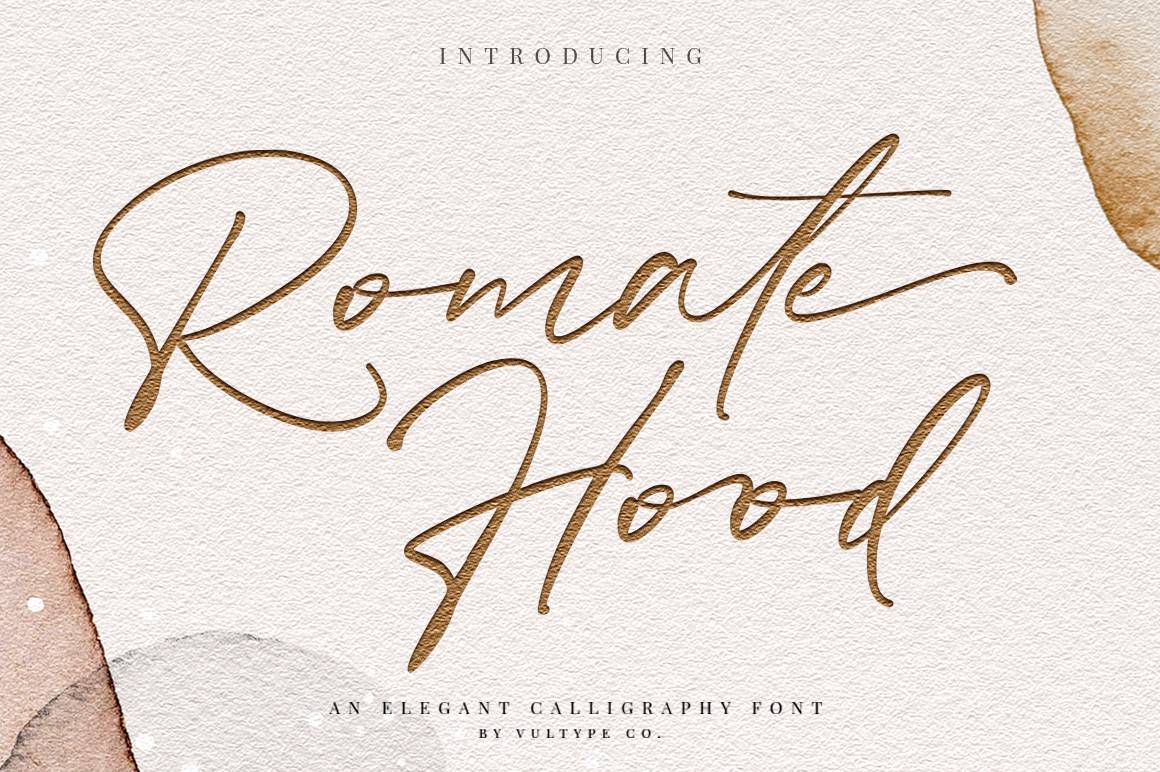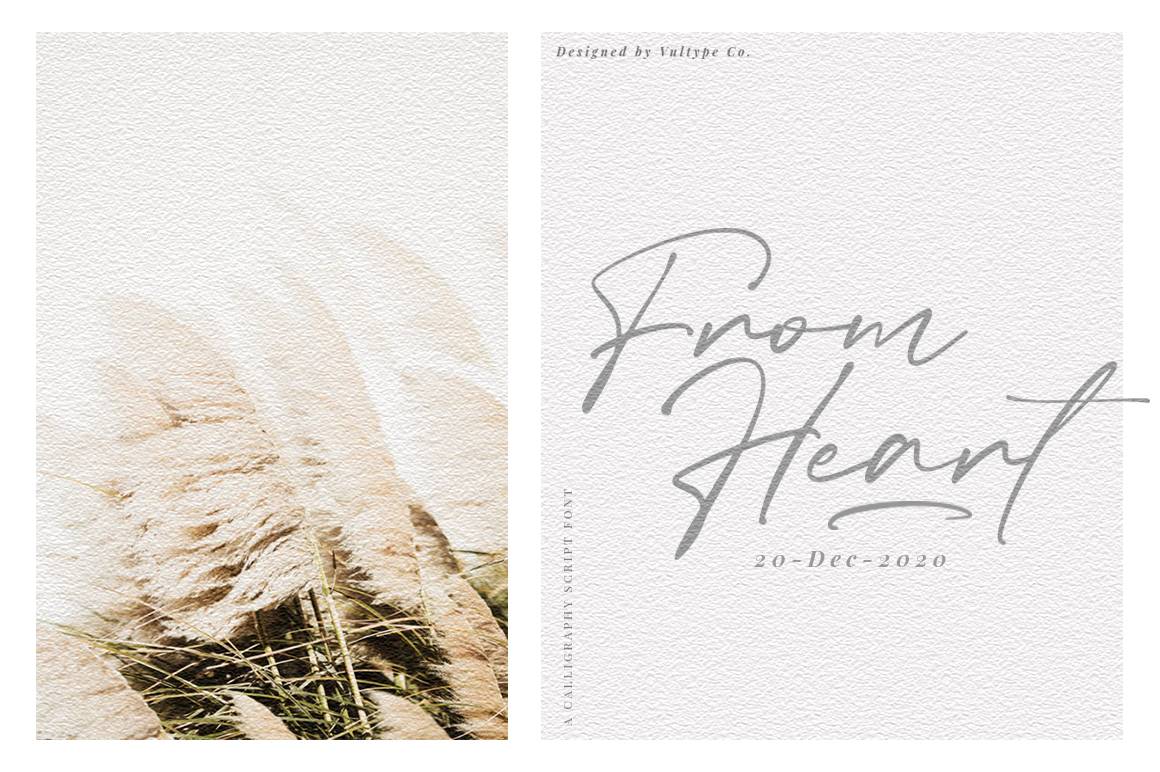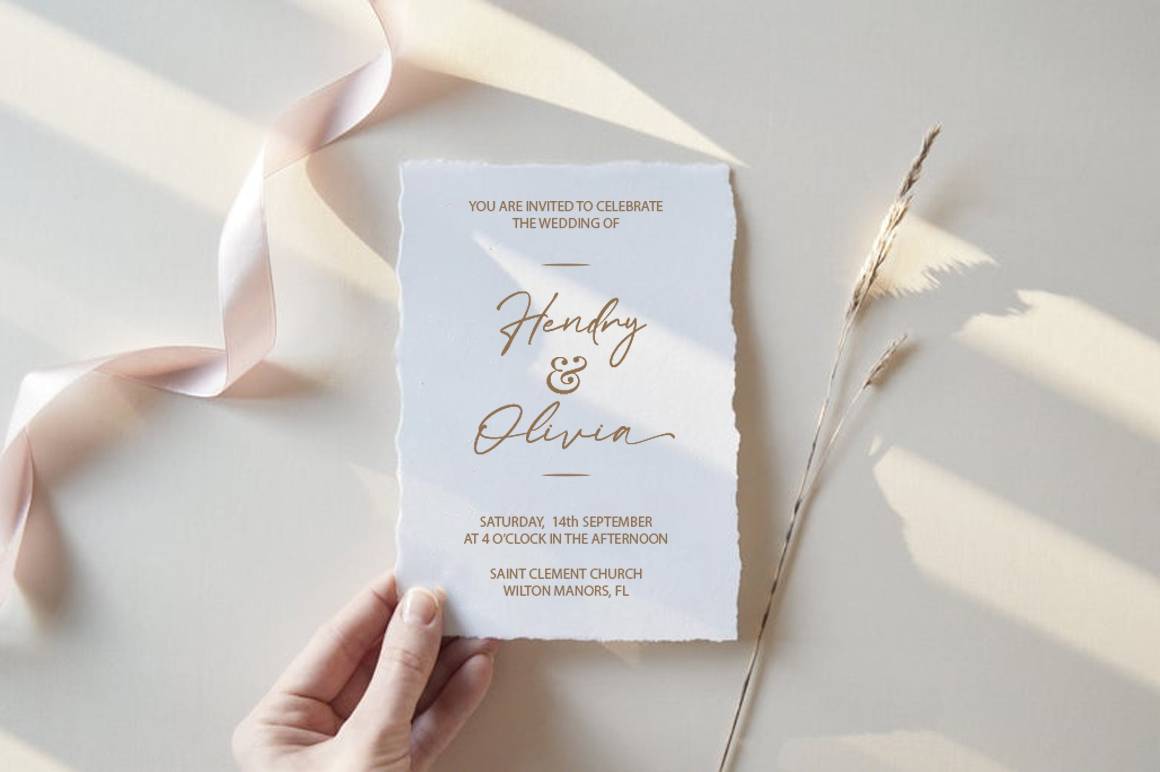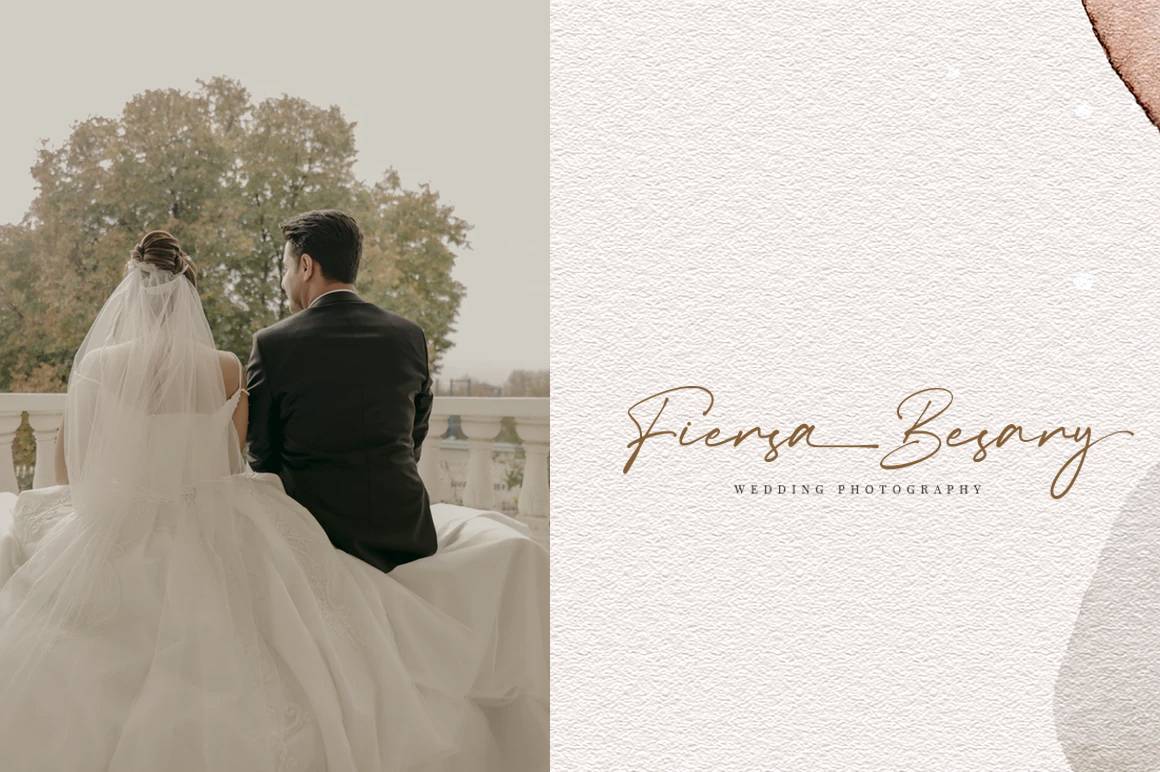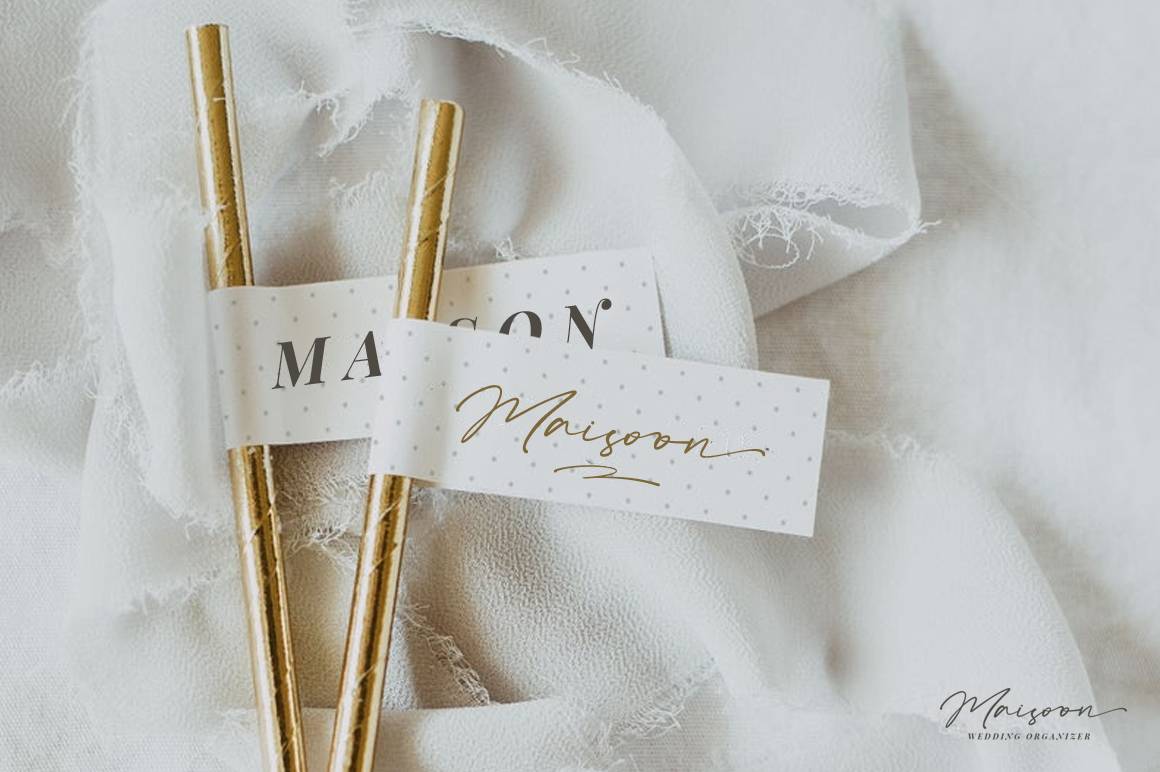
Romate Hood is a delicate and elegant script font that mimics natural handwriting with flowing, slender strokes and a refined, airy feel. Its thin, slightly uneven lines and stylish letterforms create a graceful, personal touch, making it perfect for invitations, branding, and projects that seek a sophisticated yet approachable aesthetic. This font shines in designs that want to convey creativity and intimacy with a modern, handwritten flair.
Romate Hood Font
About Romate Hood Font
| Font family | Romate Hood Font |
| Release date | 2020-03-11 |
| Designer | Candra Vultype Co. |